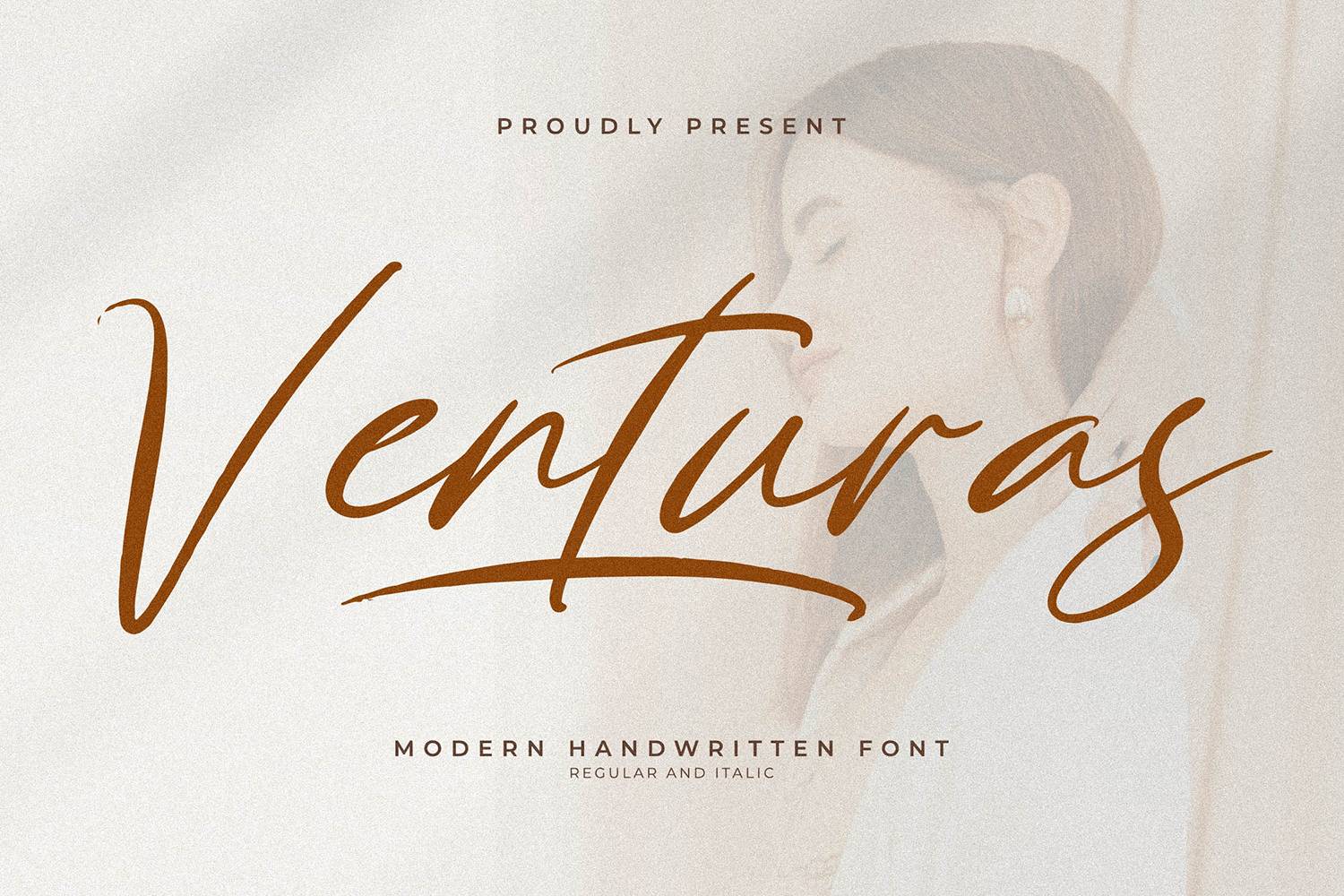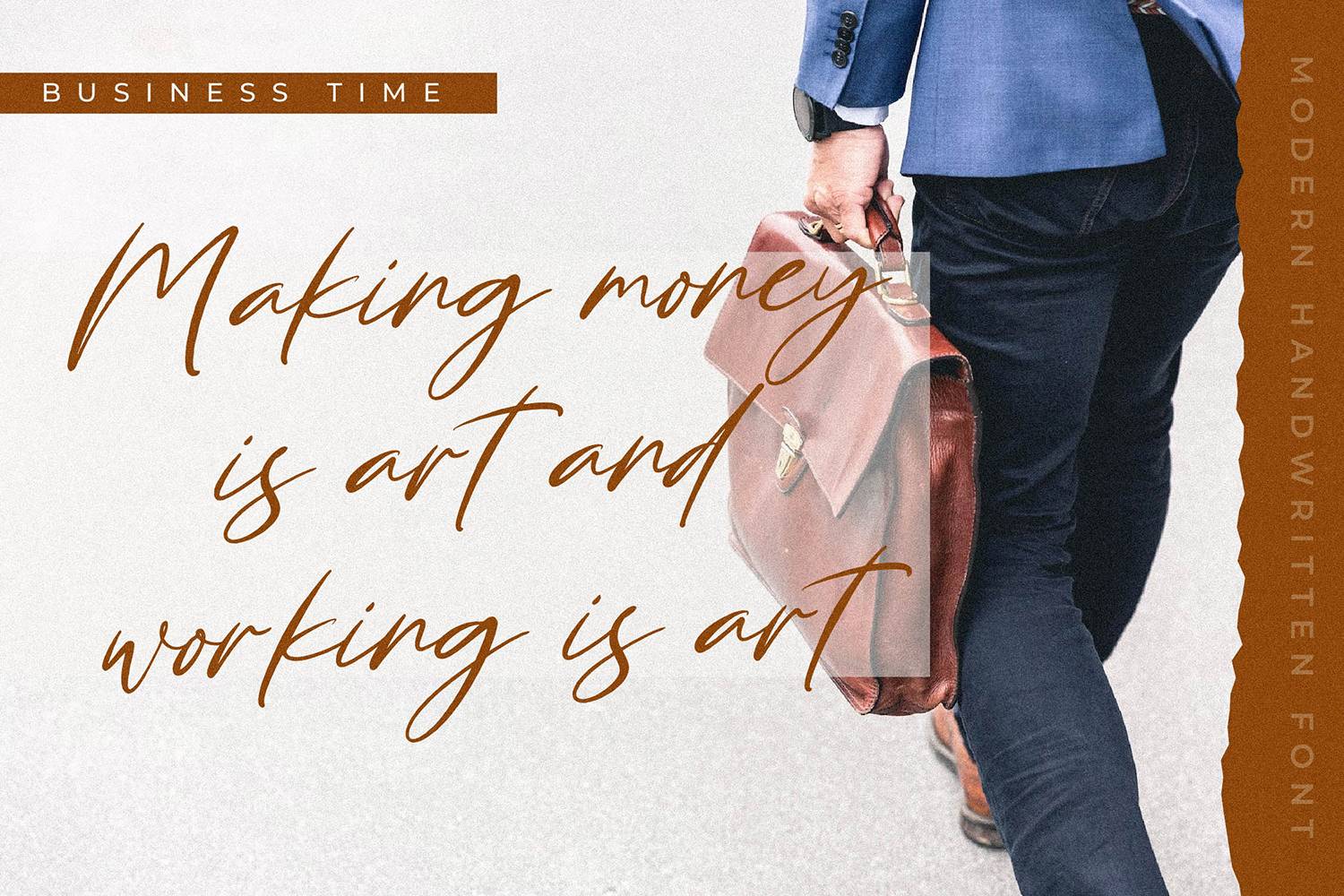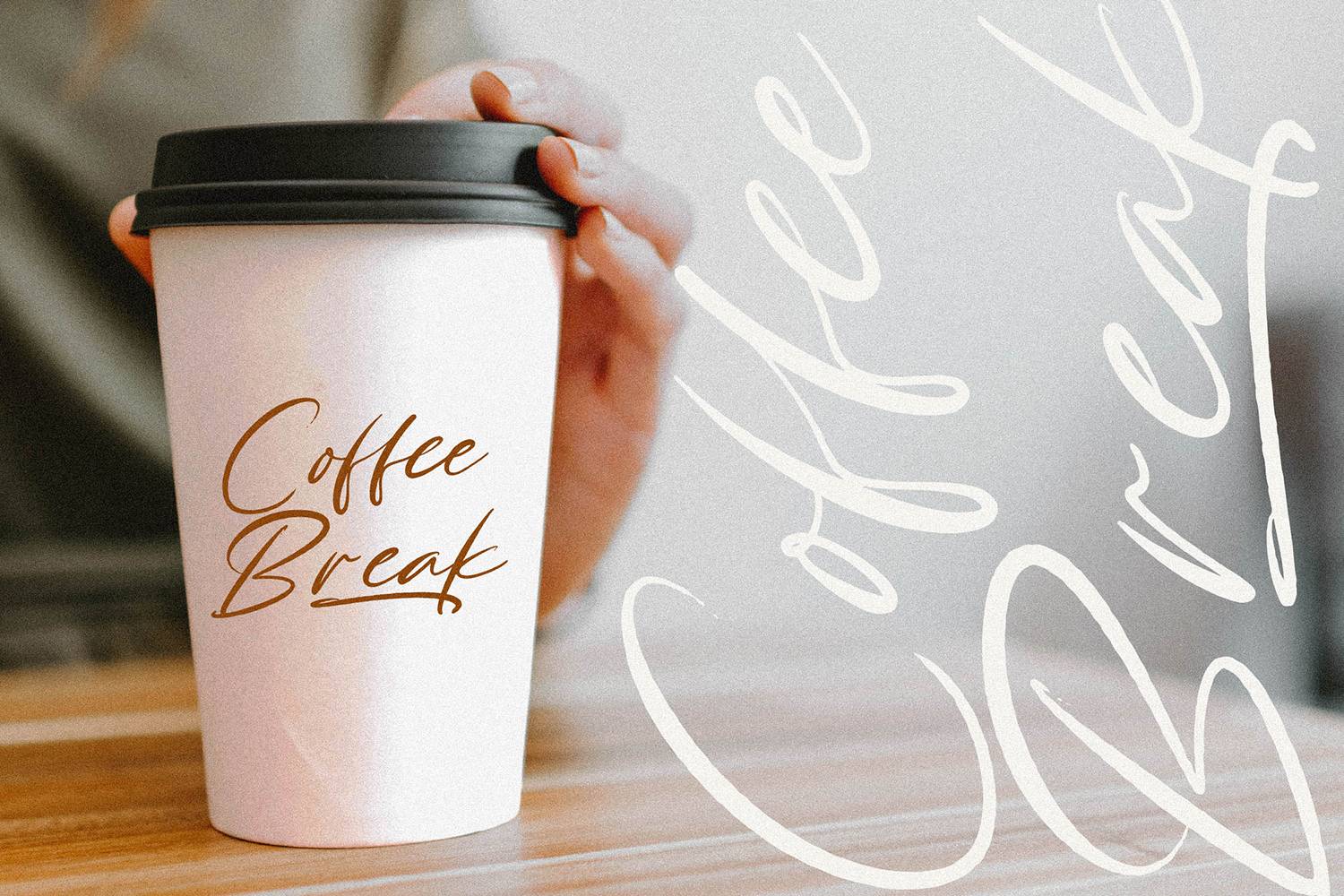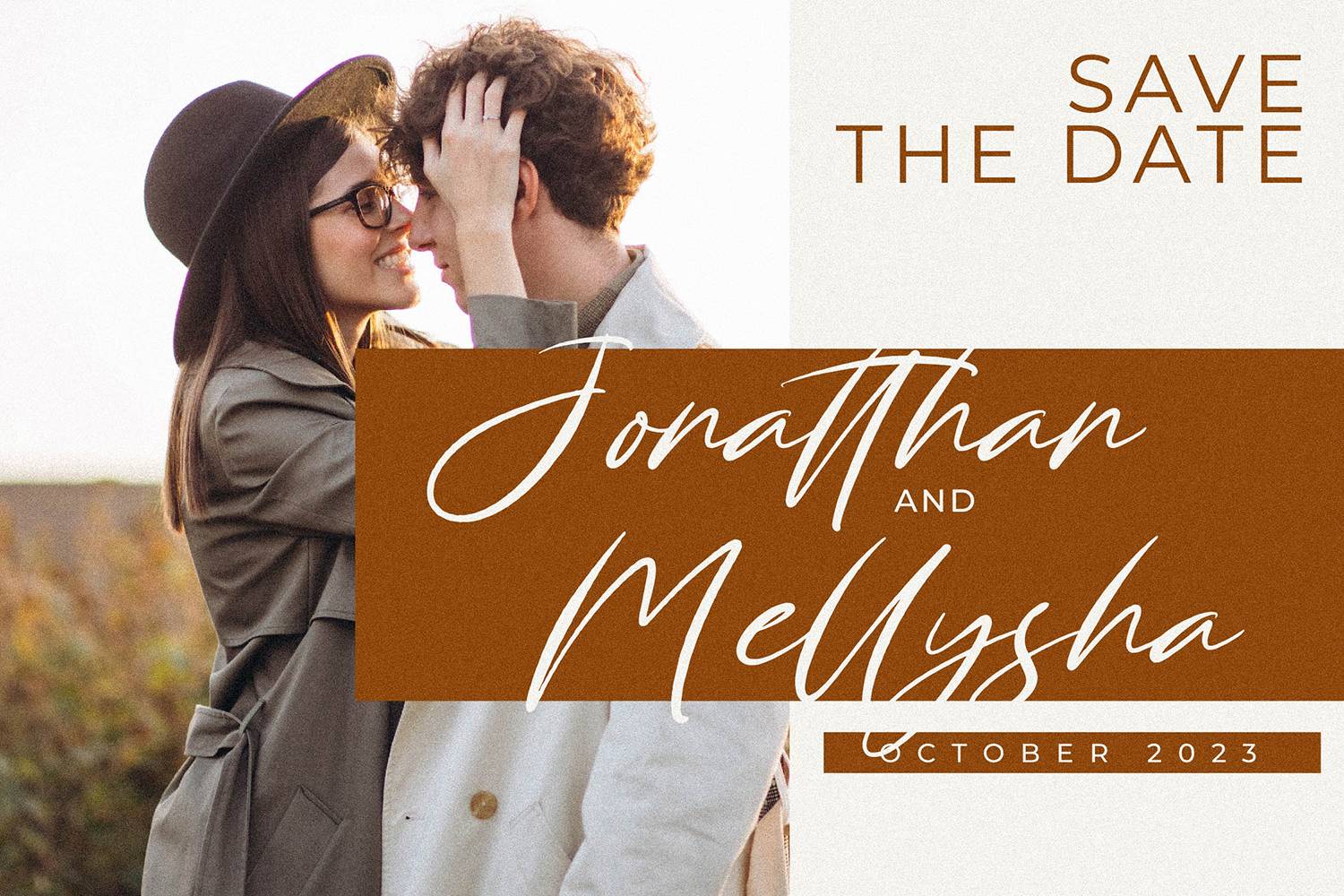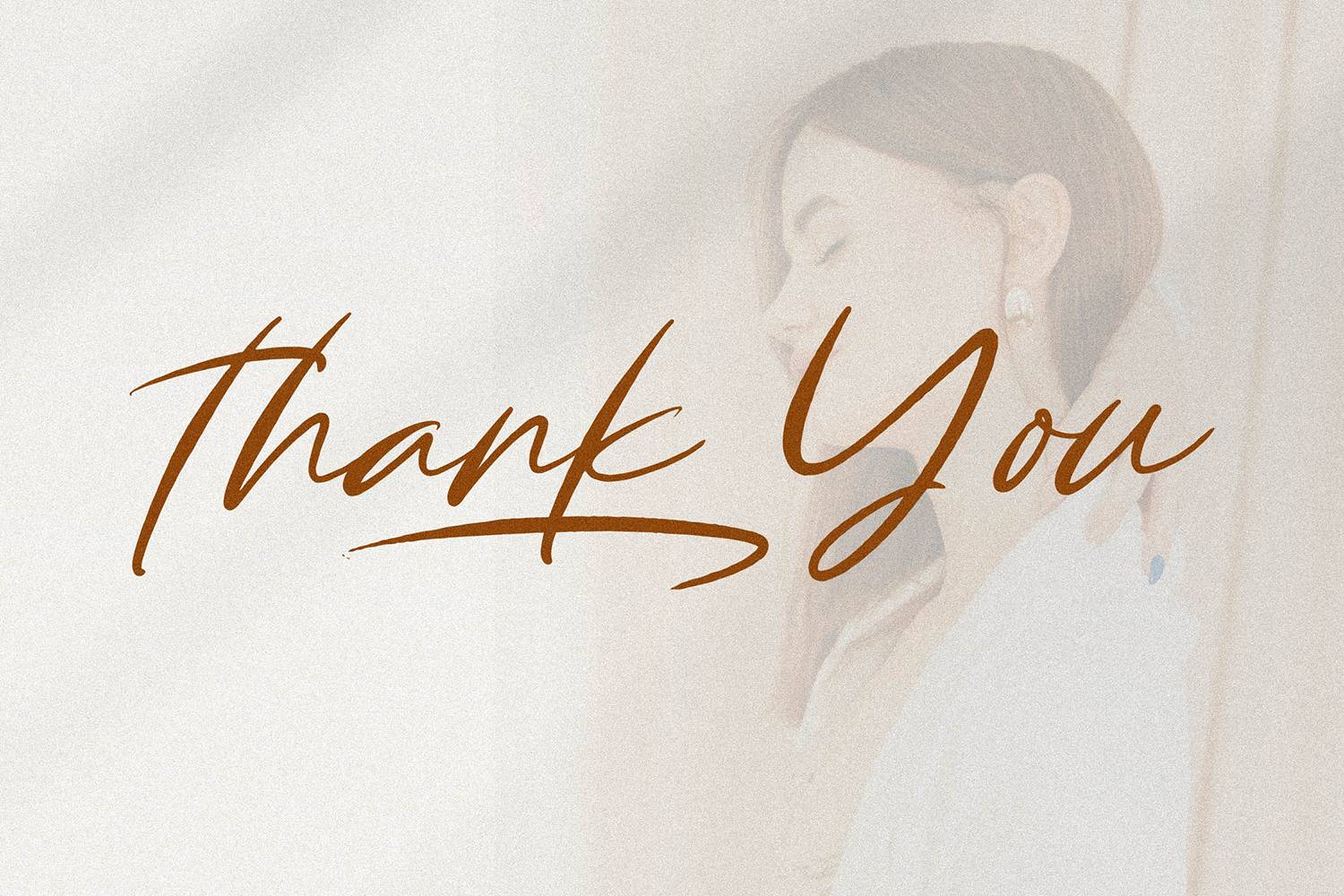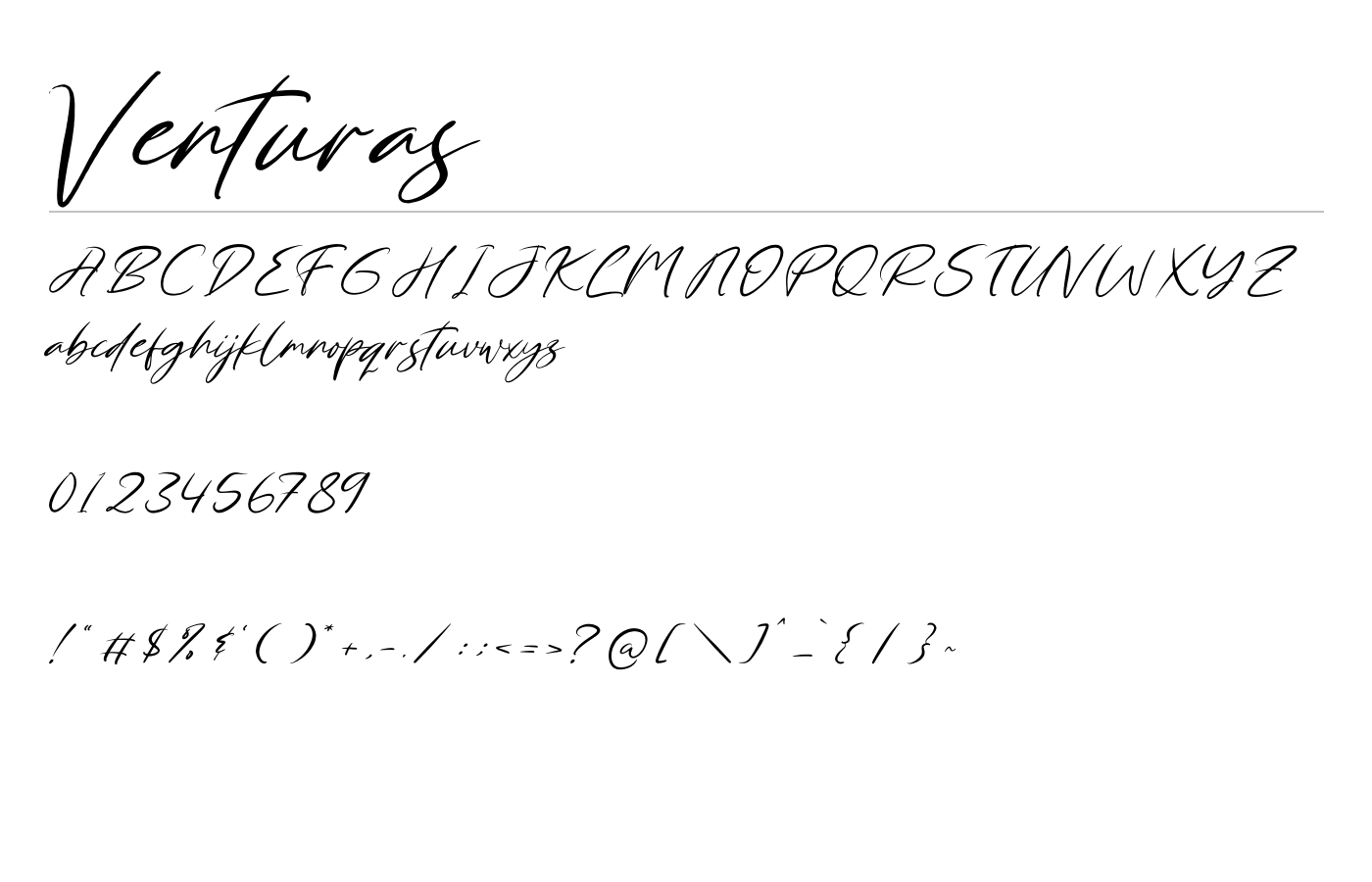
Venturas is an elegant handwritten script font characterized by its fluid, natural strokes and light weight. Its slender, slightly condensed letterforms with a tall x-height create a refined yet casual appearance, making it perfect for sophisticated branding, invitations, and stylish editorial use. This font’s graceful, personal feel adds a touch of warmth and charm to any design looking for a modern, approachable handwriting style.
Venturas Font
About Venturas Font